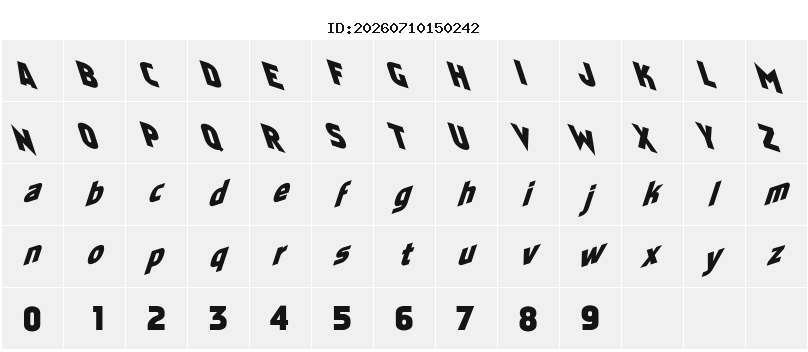
Faktos-Mirror Preview
• Font Name: Faktos-Mirror
• Full Font Name: Faktos Mirror Normal
About Faktos-Mirror.ttf
Faktos-Mirror.ttf is a modern, elegant sans-serif font designed for ultimate readability and visual harmony. Perfect for branding, headlines, web design, and print materials.